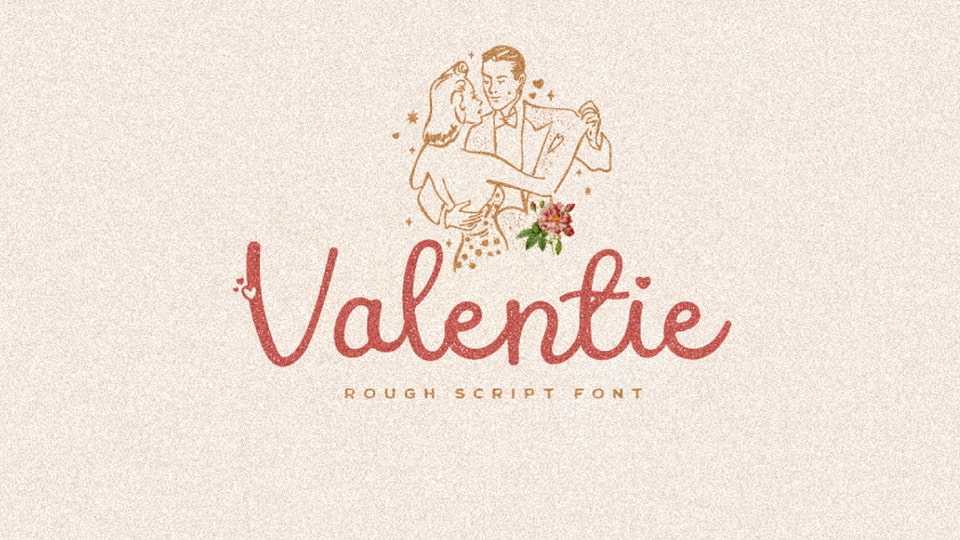
Download Valentie font, a lovely and romantic script typeface that dances with the rhythm of love. With graceful letterforms and a touch of sophistication, it adds an enchanting and timeless elegance to your designs.
Designer: Bodig Std